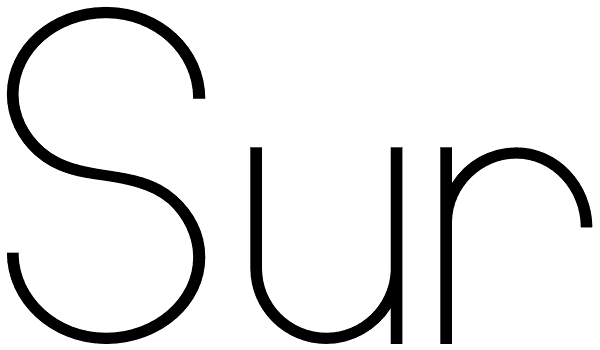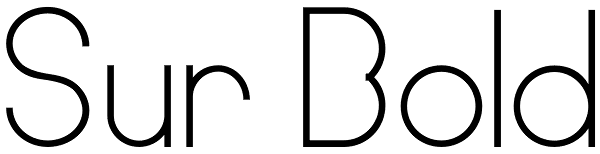
Sur
Sur is a modern minimalist sans-serif typeface available in two weights (normal and bold), with a good shape for big editorial headlines and fashion publications. It was developed during 2009, trying to find a new way to express ideas in editorial...
Sur
Sur Bold